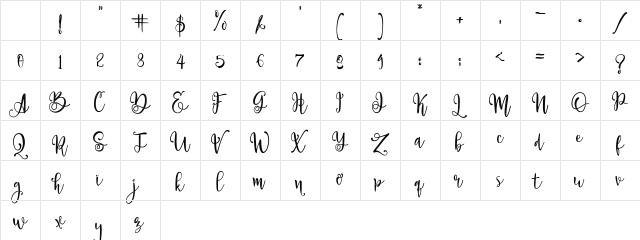
Complete Paradiso Vintage Demo Regular glyph index. Displaying only characters natively supported by Paradiso Vintage Demo Regular font.
Paradiso Vintage Demo wears its vintage influences proudly, with letterforms that recall mid-century signage, classic packaging, and nostalgia-driven design.
Font Pairing: Combine Paradiso Vintage Demo with a simple slab or neutral sans - period-accurate companions reinforce the vintage feel without competing for attention.
Pro Tip: Lean into Paradiso Vintage Demo's period character by pairing it with aged paper textures, muted colour palettes, and vintage illustration styles.